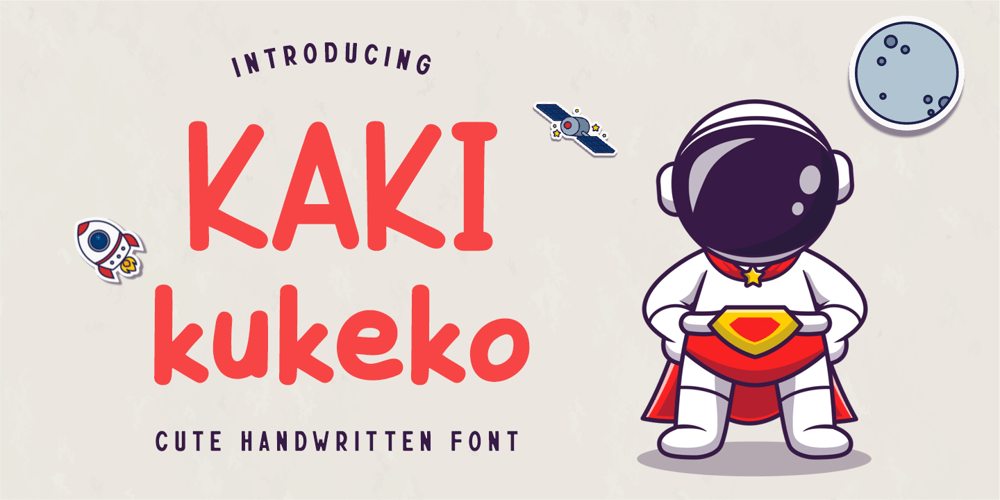
Kakikukeko Font Family was designed by Doli Harahap and published by Tigade Std. Kakikukeko contains 1 styles and family package options. Kakikukeko embodies fun, uniqueness and authenticity. This enchanting display font will turn any creative idea into a true standout. Get creative with its unique playfulness, and use it to brighten up any crafting project.